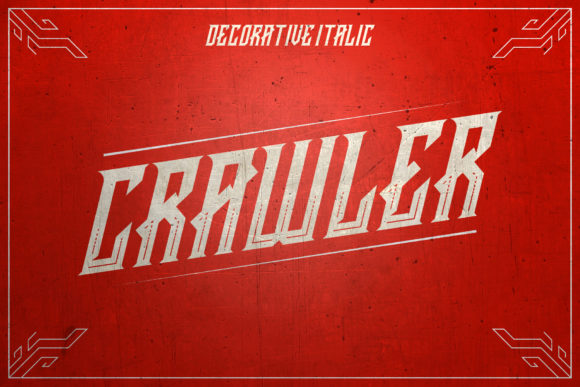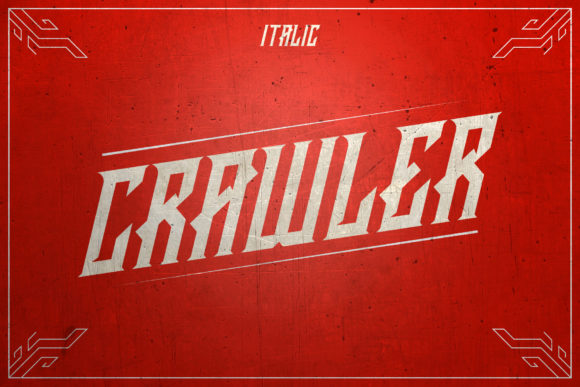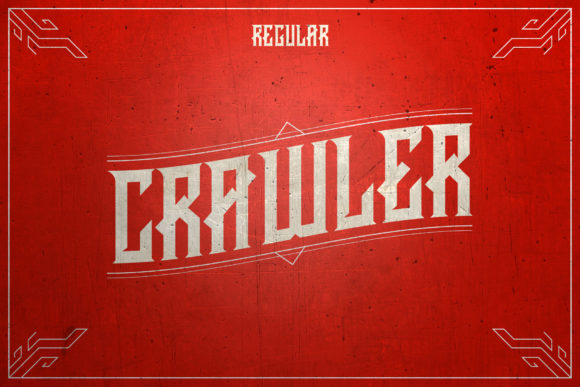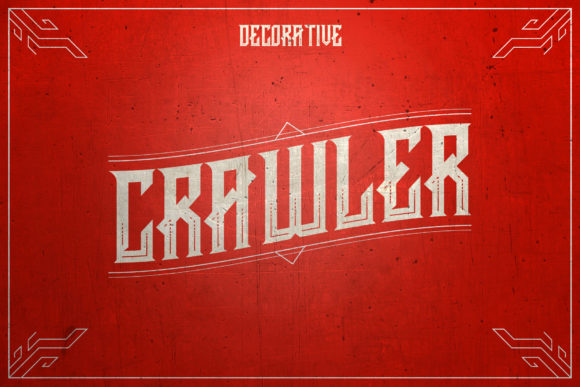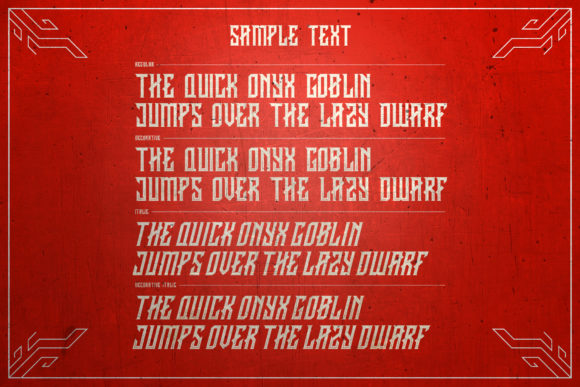
Crawler Font: Unleash Your Creativity with this Amazing Blackletter Font
Are you a designer, crafter, or DIY enthusiast looking for a unique and authentic font to elevate your creative projects? Look no further than Crawler Font, an incredible blackletter font that is sure to inspire your next masterpiece. In this article, we’ll dive into the world of Crawler Font, exploring its features, benefits, and uses, as well as provide tips and ideas for incorporating it into your designs.
What is Crawler Font?
Crawler Font is a stunning blackletter font that boasts an authentic, vintage feel. Its intricate and ornate lettering makes it perfect for creating eye-catching logos, stationary art, social media posts, and greeting cards. With its bold and dramatic appearance, Crawler Font is sure to grab attention and leave a lasting impression.
Key Features of Crawler Font
- Authentic Blackletter Style: Crawler Font features a traditional blackletter style, complete with intricate flourishes and ornate details.
- Logo Templates Included: With Crawler Font, you’ll receive a range of logo templates that you can use to create outstanding logos for your business or personal brand.
- High-Quality Design: Crawler Font is designed with high-quality craftsmanship in mind, ensuring that your designs look professional and polished.
Benefits of Using Crawler Font
So, why choose Crawler Font for your next design project? Here are just a few benefits of using this amazing blackletter font:
- Add a Touch of Elegance: Crawler Font adds a touch of elegance and sophistication to any design, making it perfect for high-end brands and luxury products.
- Stand Out from the Crowd: With its bold and dramatic appearance, Crawler Font is sure to help your designs stand out from the crowd and grab attention.
- Versatile and Flexible: Crawler Font can be used for a range of design projects, from logos and branding to social media posts and greeting cards.
Ideas for Using Crawler Font
So, how can you use Crawler Font in your designs? Here are a few ideas to get you started:
- Logo Design: Use Crawler Font to create a stunning logo for your business or personal brand.
- Stationary Art: Create beautiful stationary art, such as invitations, menus, and brochures, using Crawler Font.
- Social Media Posts: Use Crawler Font to create eye-catching social media posts that grab attention and drive engagement.
- Greeting Cards: Create cute and personalized greeting cards using Crawler Font.
Tips for Getting the Most out of Crawler Font
To get the most out of Crawler Font, here are a few tips to keep in mind:
- Experiment with Colors: Try pairing Crawler Font with different colors and textures to add depth and interest to your designs.
- Play with Layouts: Experiment with different layouts and compositions to create visually striking designs.
- Add Graphics and Illustrations: Consider adding graphics and illustrations to your designs to enhance the visual impact of Crawler Font.
In conclusion, Crawler Font is an amazing blackletter font that is sure to inspire your next design project. With its authentic feel, logo templates, and high-quality design, Crawler Font is the perfect choice for designers, crafters, and DIY enthusiasts looking to create outstanding logos, stationary art, social media posts, and greeting cards. So why wait? Download Crawler Font today and unleash your creativity!